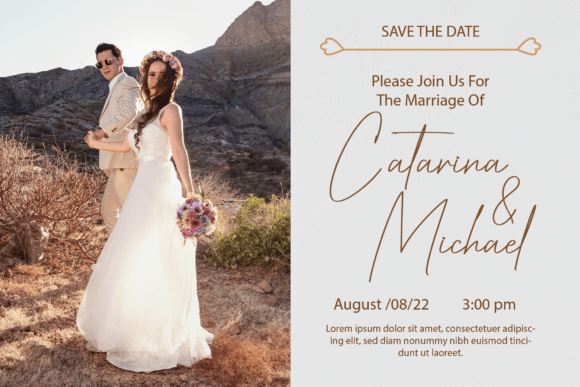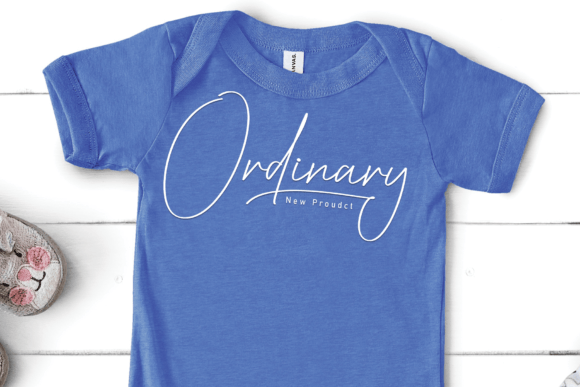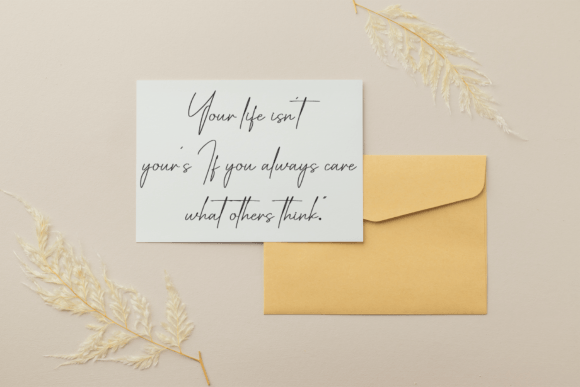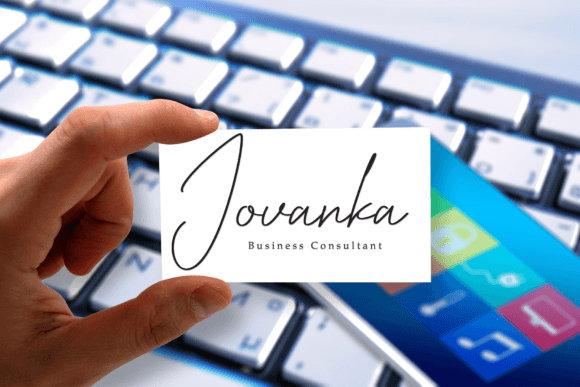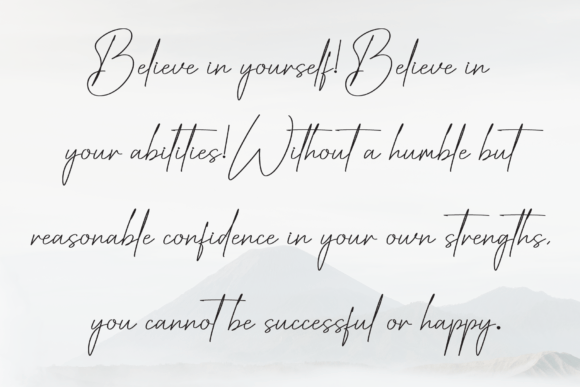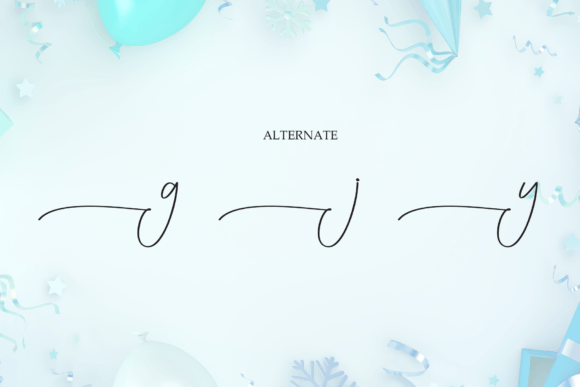
Introducing Happy Birthday Font: The Perfect Choice for Designers and Crafters
Are you looking for a font that can add a touch of elegance and whimsy to your designs? Look no further than the Happy Birthday Font! This lovely and timeless handwritten font is perfect for creating eye-catching logos, branding, and quotes that will make your design come alive.
What Makes Happy Birthday Font So Special?
The Happy Birthday Font is a unique and beautiful font that is sure to capture the attention of your audience. Every letter has a distinctive and artistic touch that sets it apart from other fonts. The font’s handwritten style gives it a warm and personal feel, making it perfect for designs that require a touch of personality.
Why Choose Happy Birthday Font?
There are many reasons why Happy Birthday Font is the best choice for designers and crafters. Here are just a few:
- Unique and Beautiful Touch: Every letter in the Happy Birthday Font has a unique and beautiful touch that will make your design stand out.
- Timeless Design: The font’s handwritten style is timeless and will never go out of fashion.
- Elegant and Whimsical: The font’s elegant and whimsical design makes it perfect for a wide range of designs, from logos and branding to quotes and more.
- Easy to Read: Despite its artistic style, the Happy Birthday Font is easy to read, making it perfect for designs that require a clear and concise message.
How to Use Happy Birthday Font
The Happy Birthday Font is versatile and can be used for a wide range of designs, including:
- Logos and Branding: Use the Happy Birthday Font to create eye-catching logos and branding that will make your business stand out.
- Quotes and Posters: The font’s elegant and whimsical design makes it perfect for quotes and posters that require a touch of personality.
- Cards and Invitations: Use the Happy Birthday Font to create beautiful and unique cards and invitations for special occasions.
- Digital Designs: The font is perfect for digital designs, including social media graphics, blog posts, and more.
Tips for Using Happy Birthday Font
Here are a few tips for using the Happy Birthday Font:
- Use it Sparingly: While the Happy Birthday Font is beautiful, it’s best to use it sparingly to avoid overwhelming your design.
- Pair it with Other Fonts: The Happy Birthday Font pairs well with other fonts, so don’t be afraid to experiment with different combinations.
- Experiment with Colors: The font’s elegant design looks great in a variety of colors, so experiment with different colors to find the one that works best for your design.
The Happy Birthday Font is a beautiful and versatile font that is perfect for designers and crafters. Its unique and beautiful touch, timeless design, and elegant and whimsical style make it perfect for a wide range of designs. Whether you’re creating logos and branding, quotes and posters, or cards and invitations, the Happy Birthday Font is the perfect choice. So why wait? Download the Happy Birthday Font today and start creating stunning designs that will make your audience take notice!
Key Features of Happy Birthday Font
- Unique and beautiful handwritten font
- Timeless design that will never go out of fashion
- Elegant and whimsical style
- Easy to read
- Perfect for logos, branding, quotes, cards, and more